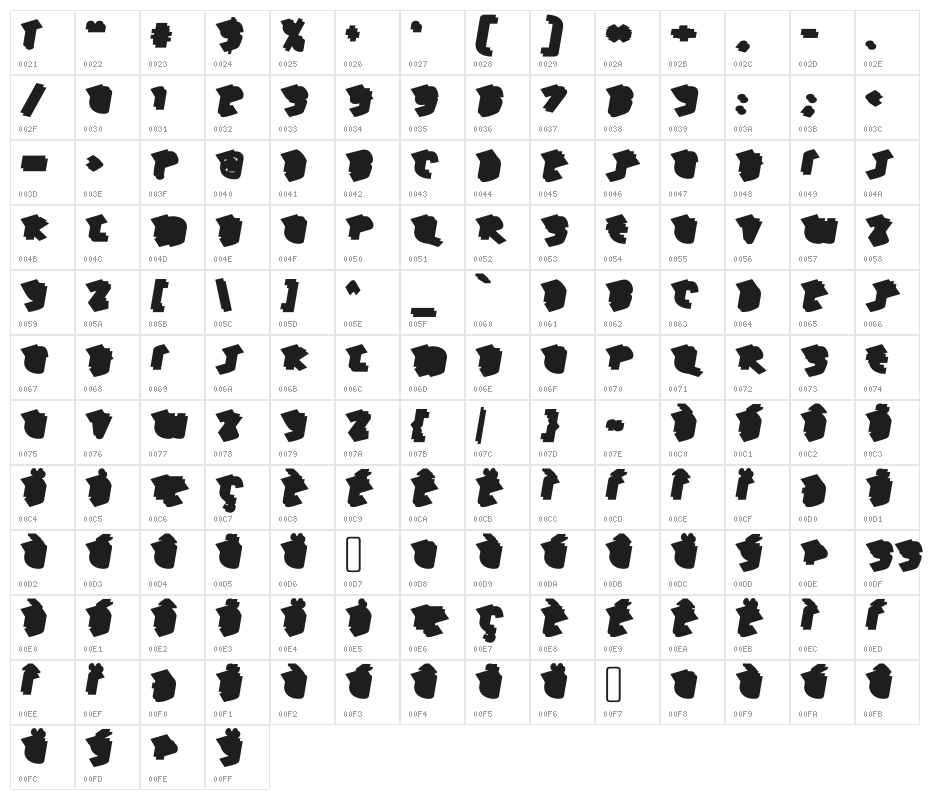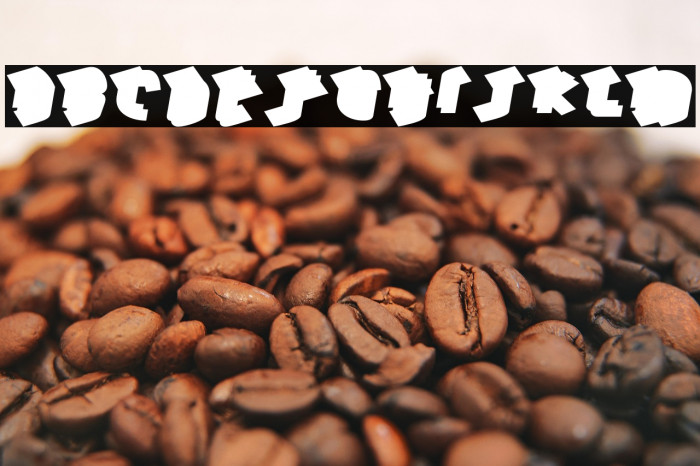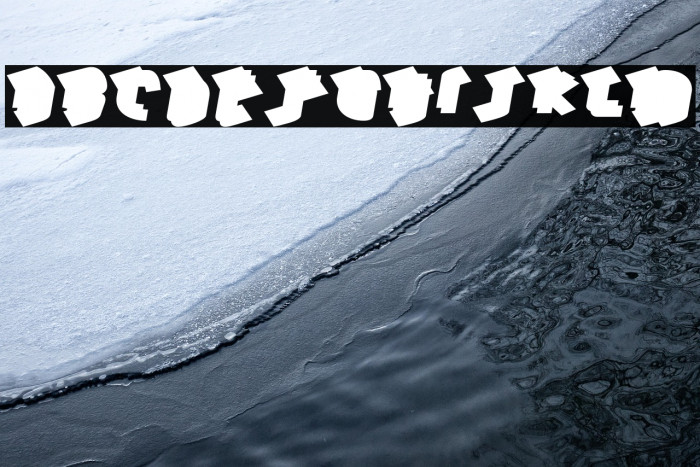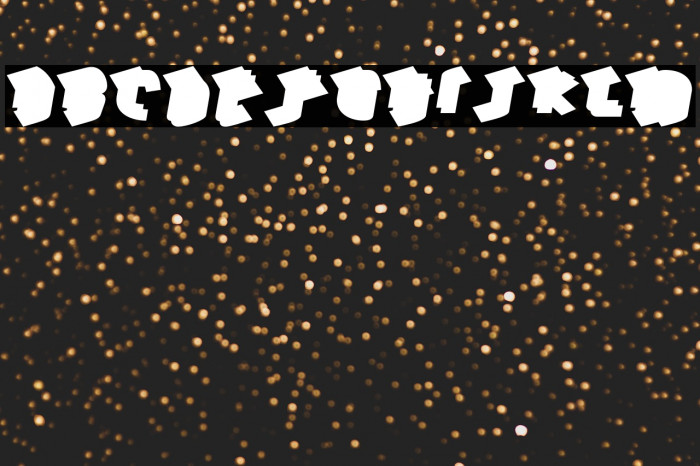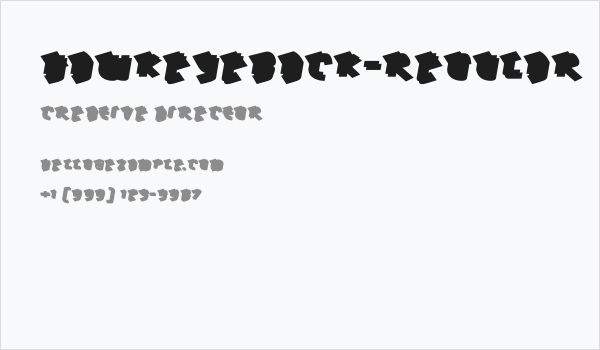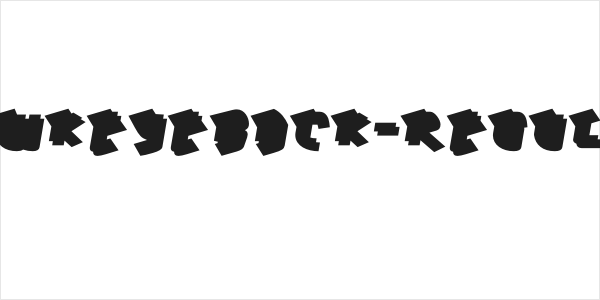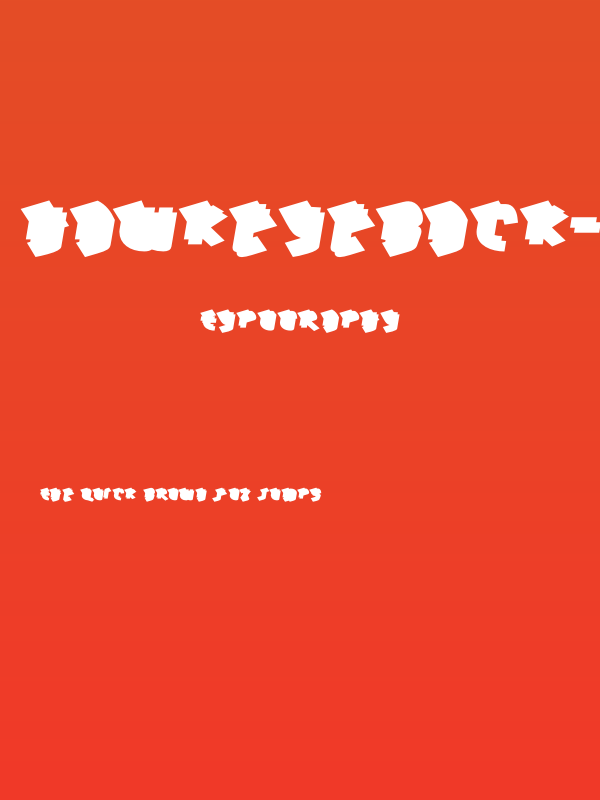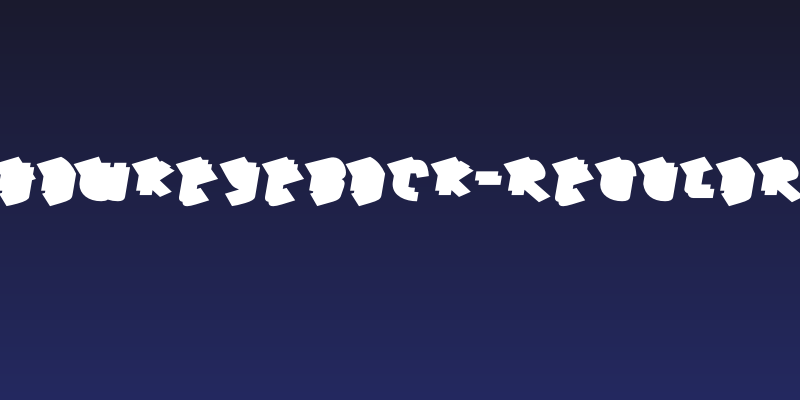
HawkeyeBack-Regular Font
HawkeyeBack-Regular Description
This font features a bold and dynamic style with a distinctly angular and geometric design. Each character is crafted with sharp edges and a blocky appearance, creating a sense of movement and energy. The letters are tightly spaced, enhancing the compact and robust feel of the typeface. This font is ideal for making a strong visual impact, with its high contrast and striking presence. The unique design elements make it suitable for projects that require a modern and edgy aesthetic.
| Proposed Projects | Ideal for posters, album covers, video game graphics, and branding that requires a modern and bold statement. |